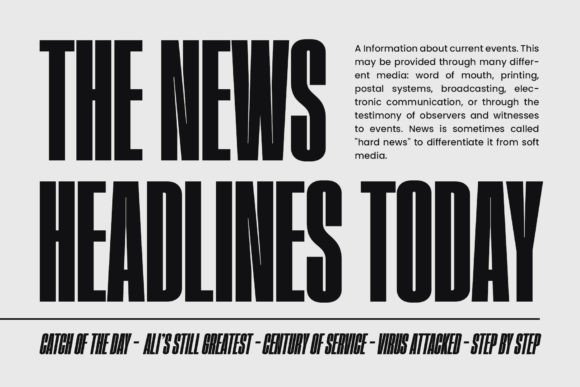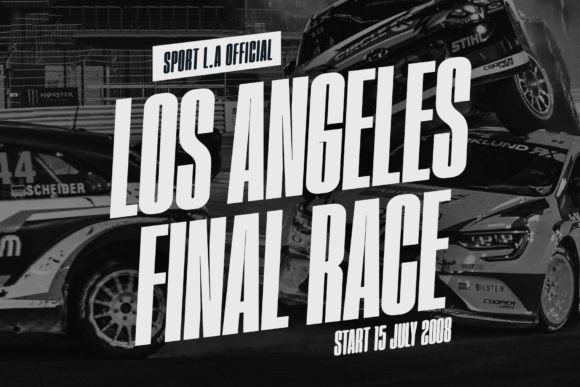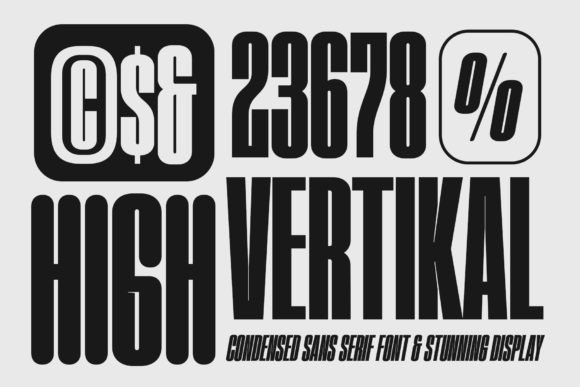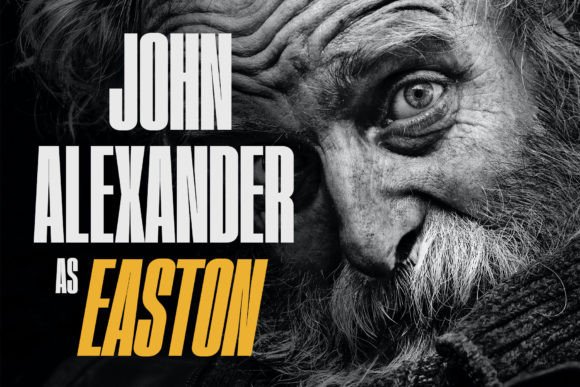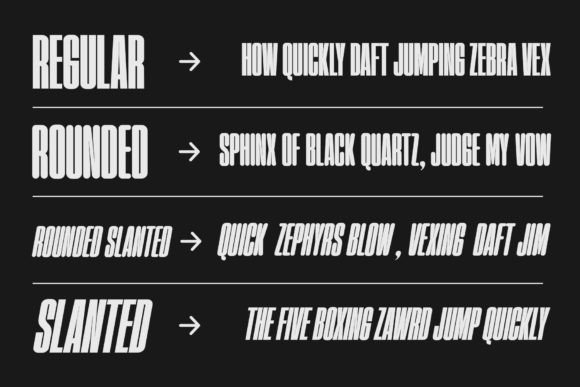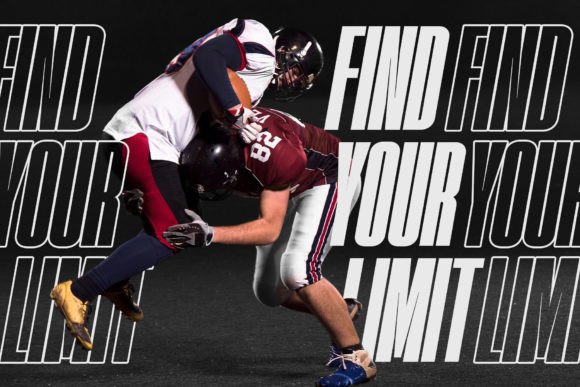
Introduction to Homura Font
Homura is a sans-serif display font that is inspired by newspaper headlines and modern typography.
This font is condensed, bold, and elegant, with a tight design that includes ink traps in some sharp corners, giving it a fancy, fun, and minimalist impression Flexible for various design themes.